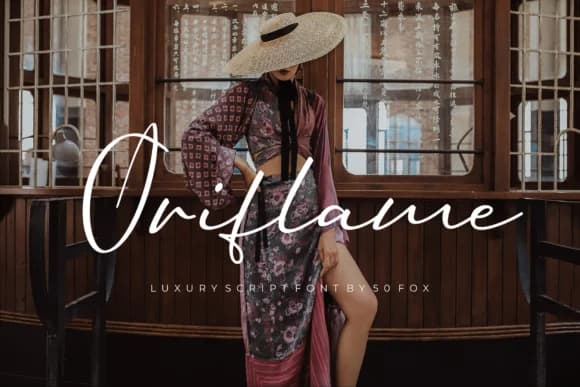
Oriflame Script Font by 50Fox is a flowing handwritten typeface that balances confident self-expression with refined elegance. The font's expressive letterforms and smooth curves create a dynamic presence that captures attention while maintaining warmth and approachability, making it an excellent choice for brands seeking personality without sacrificing sophistication.
This script font excels in creating memorable visual experiences across premium design applications. From luxury wedding invitation suites and bespoke gift packaging to artisanal food labels and boutique beauty product branding, Oriflame brings distinctive character to projects that demand more than standard serif or sans-serif options. Designers frequently turn to it for hand-lettered logo designs, decorative chapter headings in published work, and custom apparel graphics that showcase organic letterwork. The consistent letterforms and flowing connections ensure legibility across both large headlines and smaller applications.
Oriflame Script Font is a script font that shines as a display or heading face. Pair it with a clean sans-serif or serif font for body text β the contrast creates a clear hierarchy while the two styles stay balanced and easy to read.
Oriflame Script Font
by 50Fox